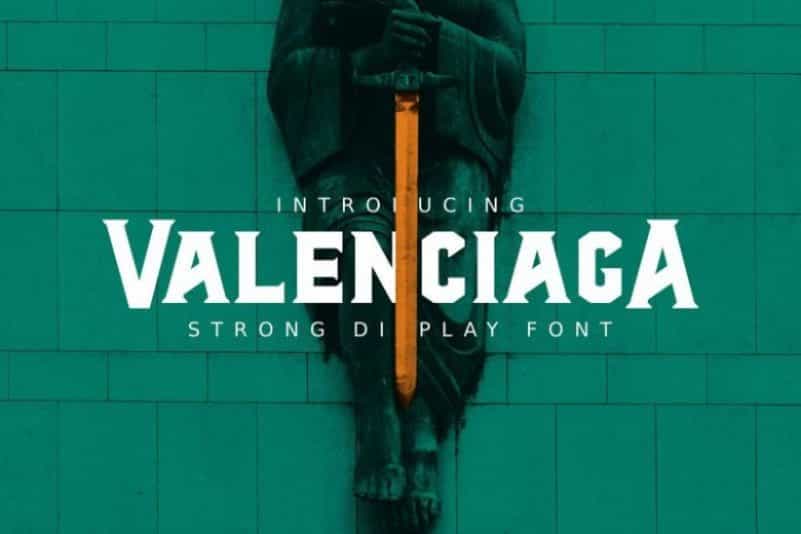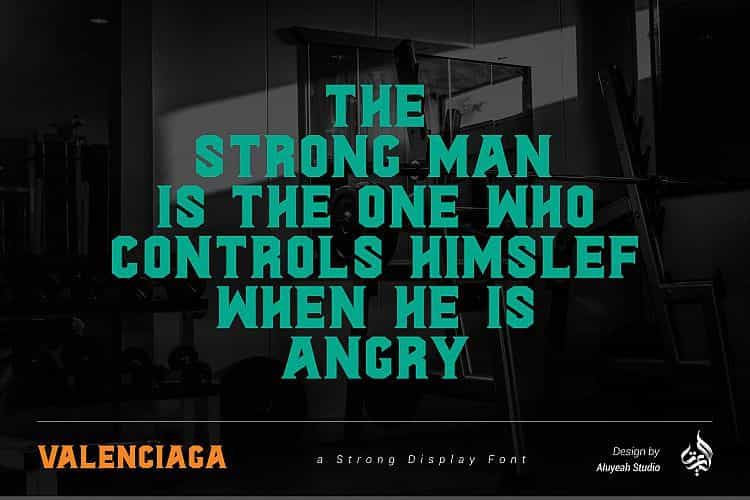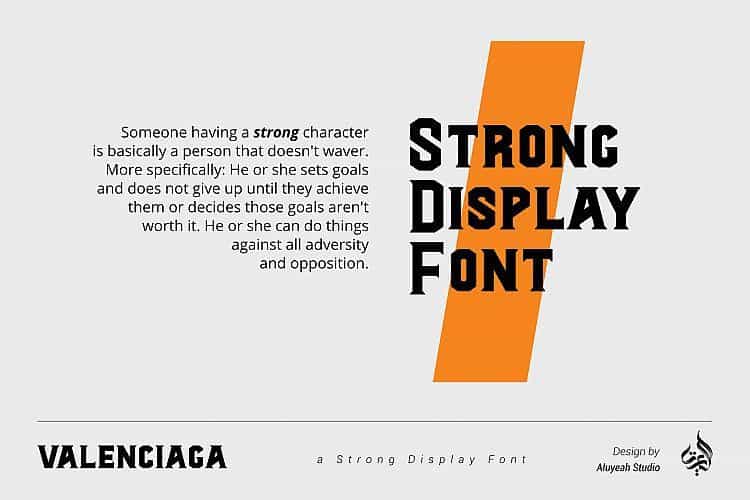
Al Valenciaga Display Font
Discover Al Valenciaga Display Font, part of the   Serif Display Gothic  Vintage collection—a versatile and unique font perfect for adding a personal touch to your projects. Download it for free and enjoy crafting designs with style, from invitations to social media posts. This font is available exclusively for personal use, giving you the freedom to create without limits. Unlock your creativity with Al Valenciaga Display Font today!
Al Valenciaga is a type of font which is robust and has strong characters in display font. It is ideal for various projects!